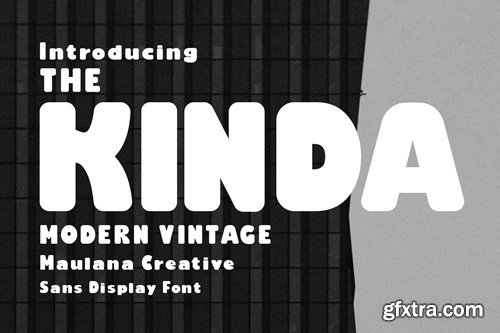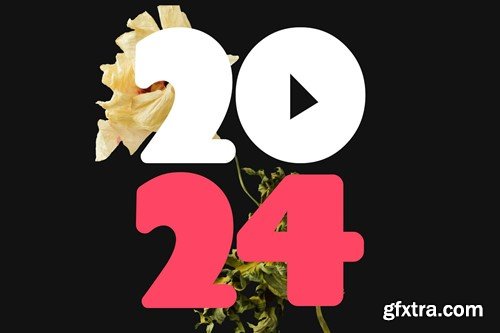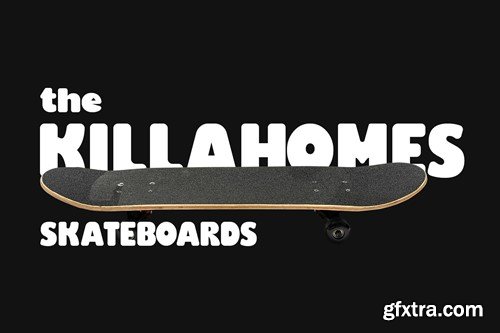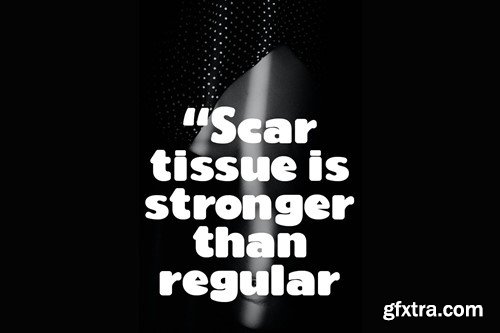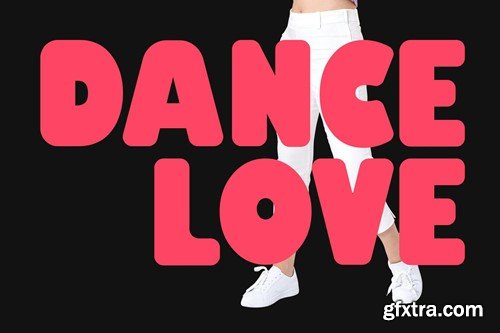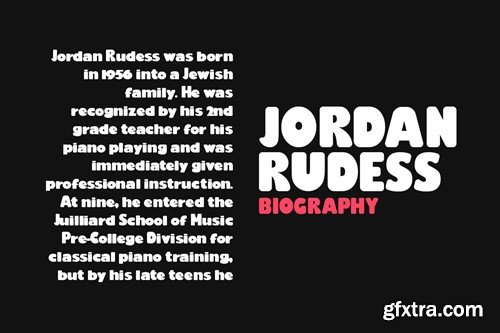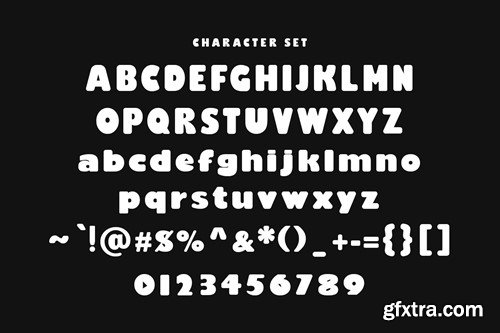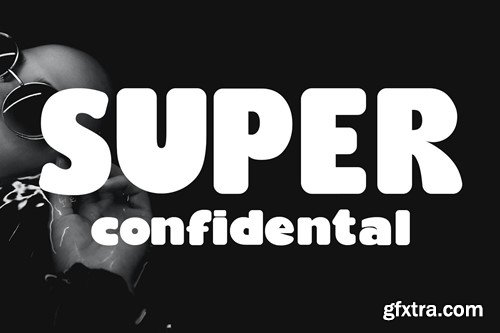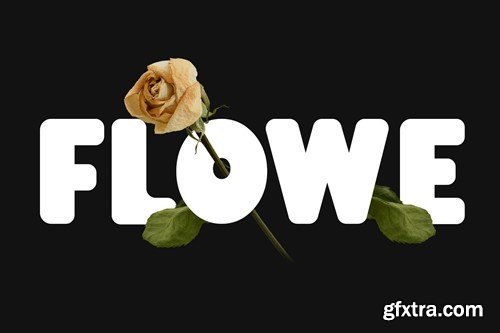
Kinda Sans Display Font
Kinda is a sans serif display font. With bold tall and sharp stroke, fun character with a bit of ligatures and alternates. To give you an extra creative work. Kinda font support multilingual more than 100+ language. This font is good for logo design, Social media, Movie Titles, Books Titles, a short text even a long text letter and good for your secondary text font with sans or serif. Make a stunning work with Kinda font. What you get: Cheers, Maulana Creative